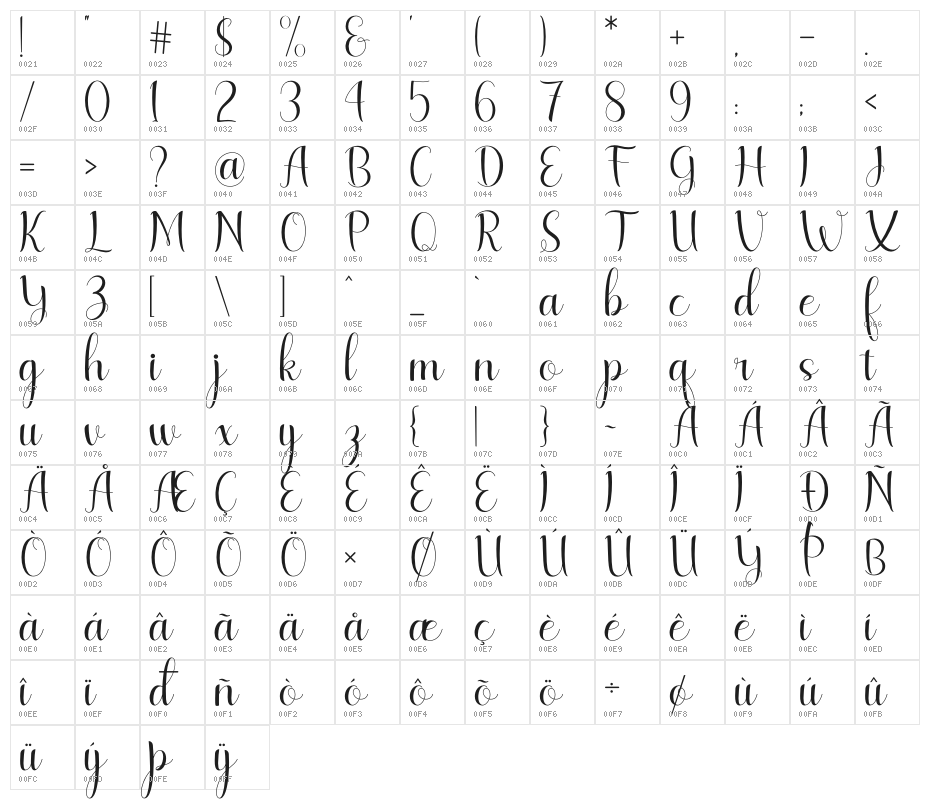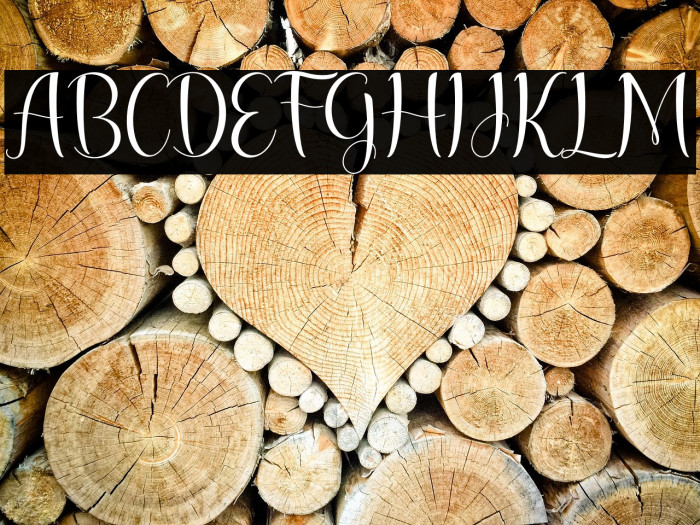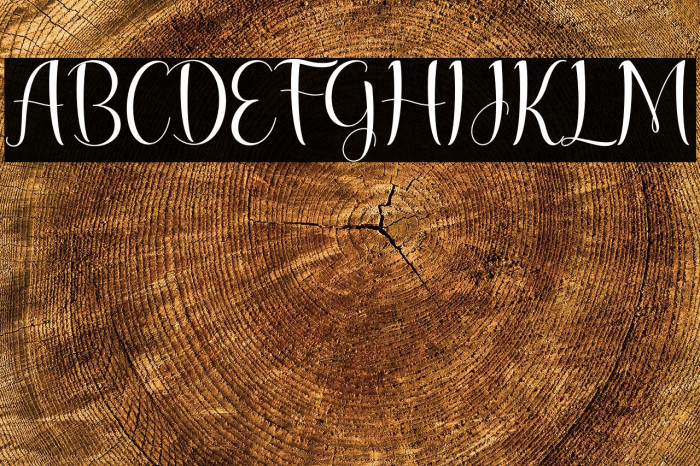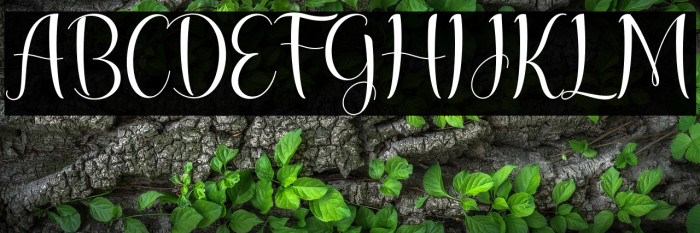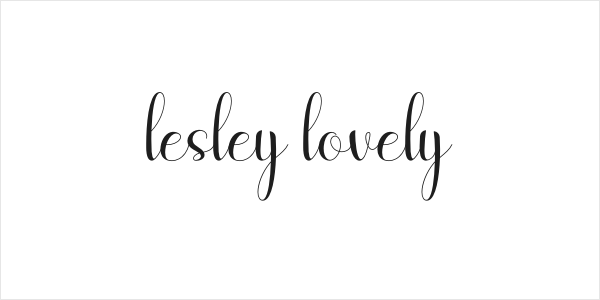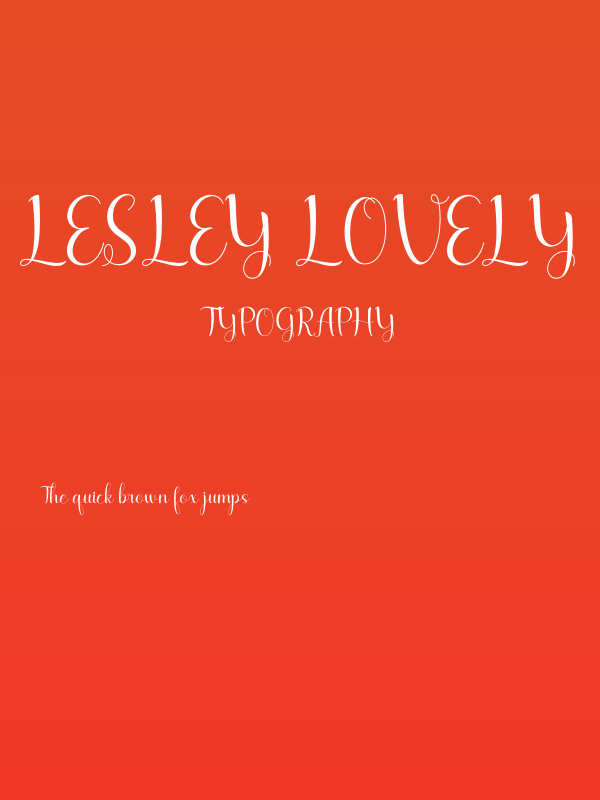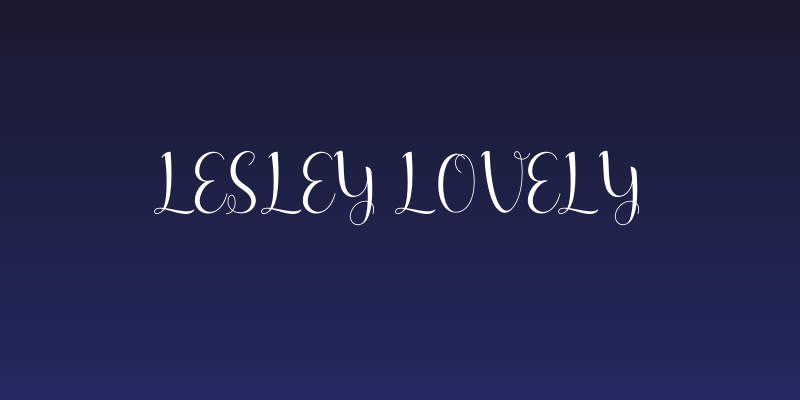
lesley lovely Font
lesley lovely Description
This elegant script font features a flowing, cursive style with delicate loops and swirls that give it a sophisticated and graceful appearance. The uppercase letters are tall and slender, with intricate flourishes that add a touch of whimsy. The lowercase letters maintain a consistent flow, enhancing readability while retaining an artistic flair. Numbers and special characters are designed with the same attention to detail, ensuring a cohesive look across all text elements. This font is perfect for creating a romantic or luxurious feel, making it ideal for invitations, branding, and decorative projects.
| Use Case | Invitations, Branding, Decorative |
| Proposed Projects | Ideal for wedding invitations, branding, greeting cards, and decorative projects. |